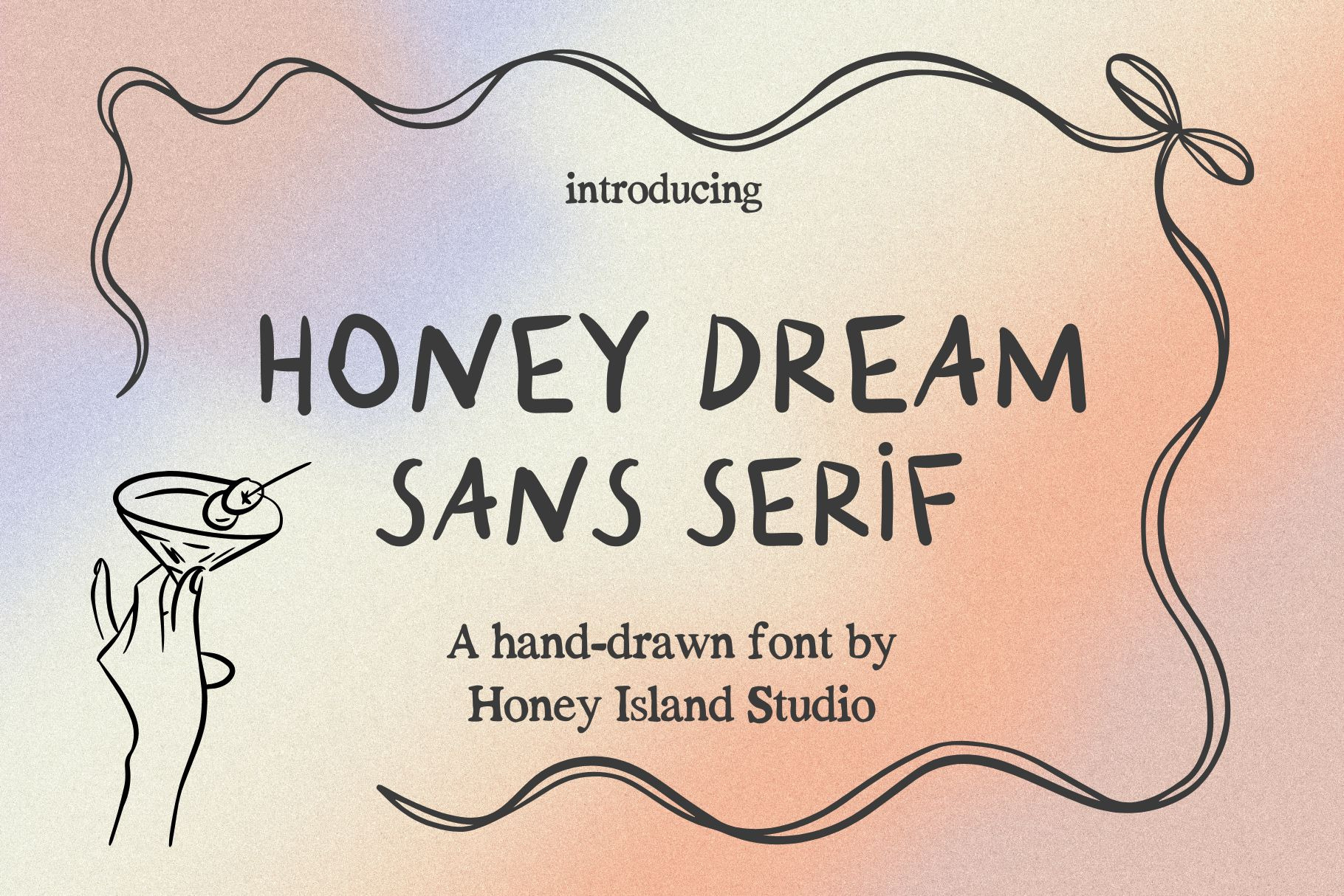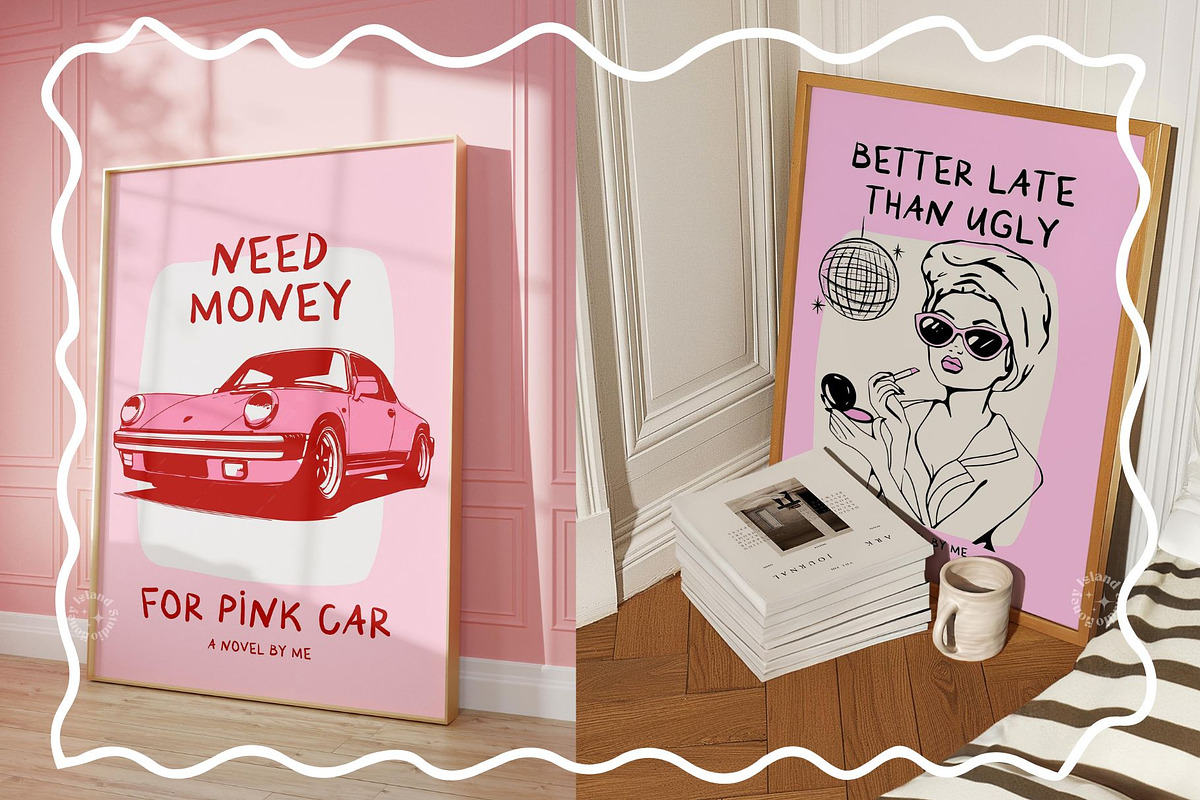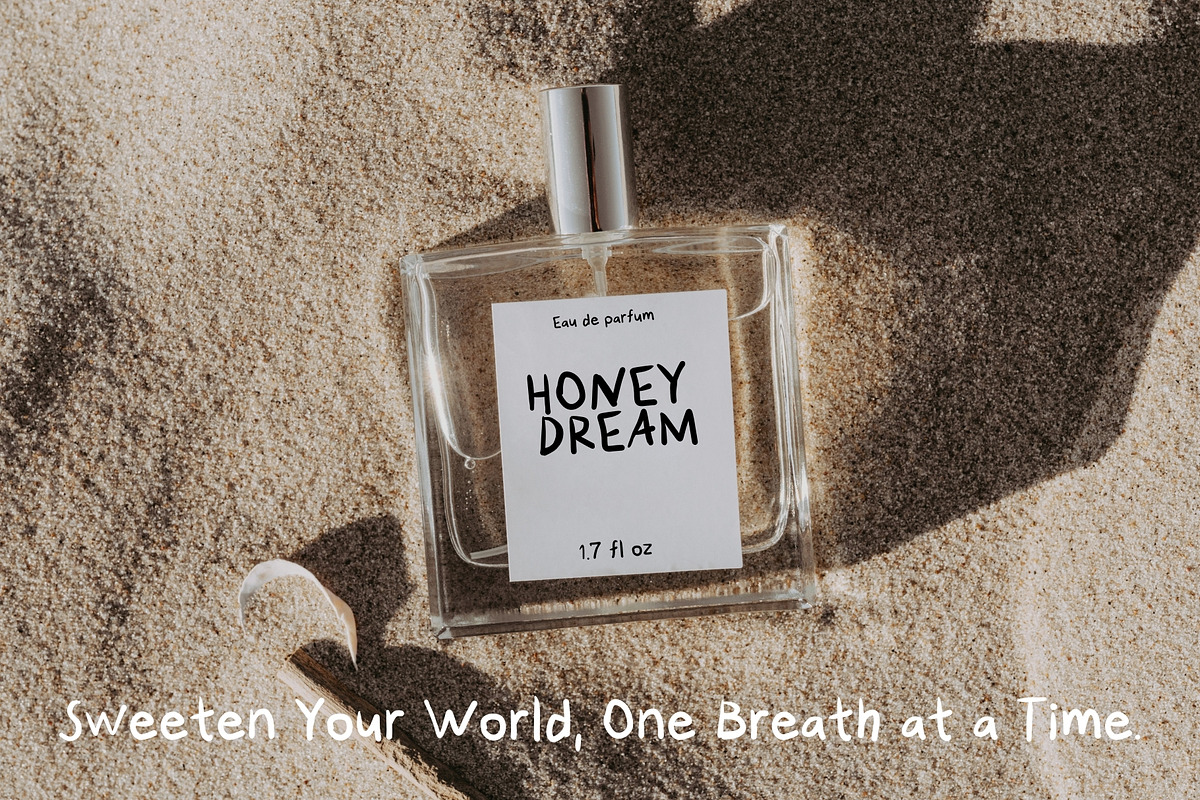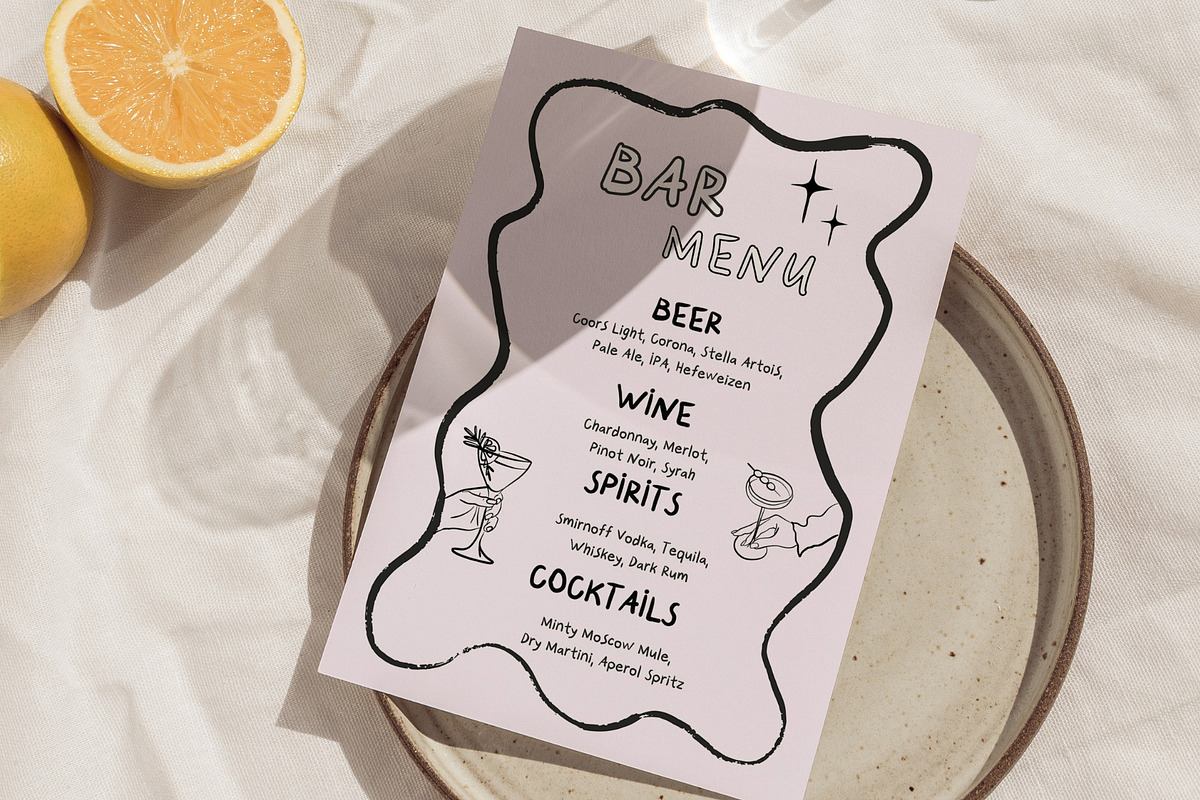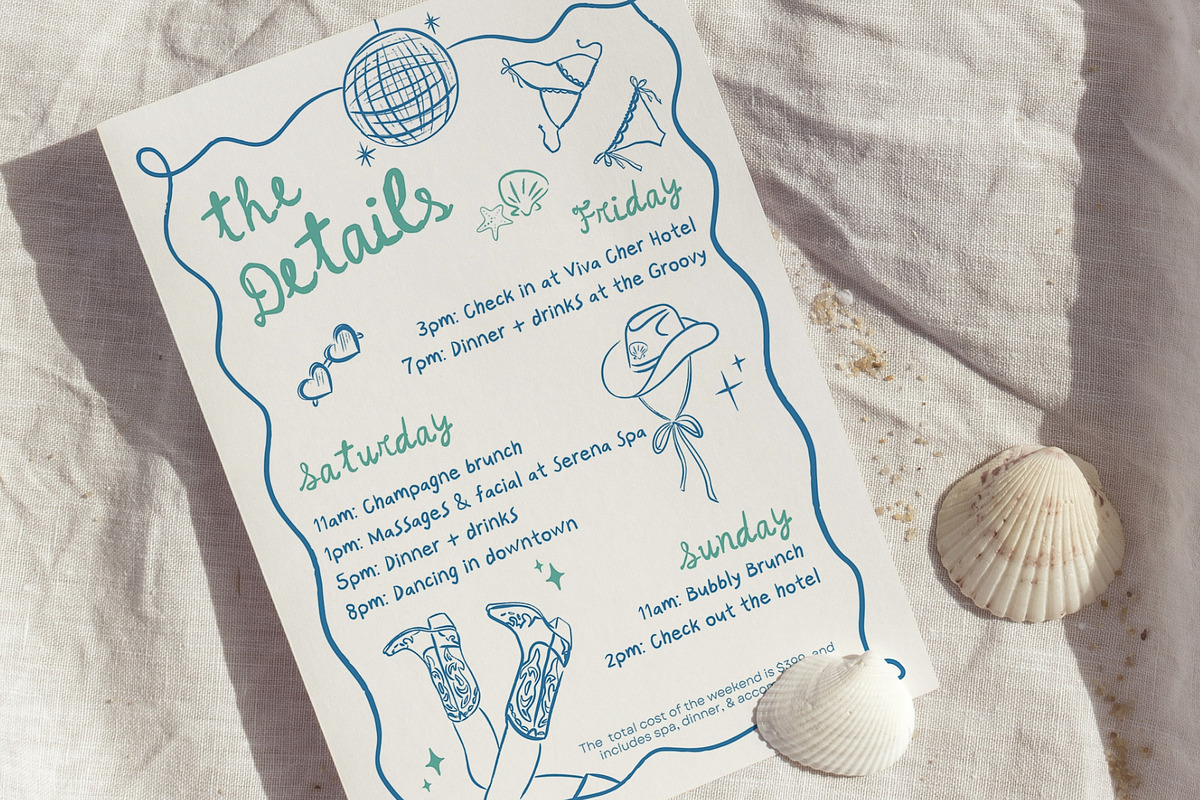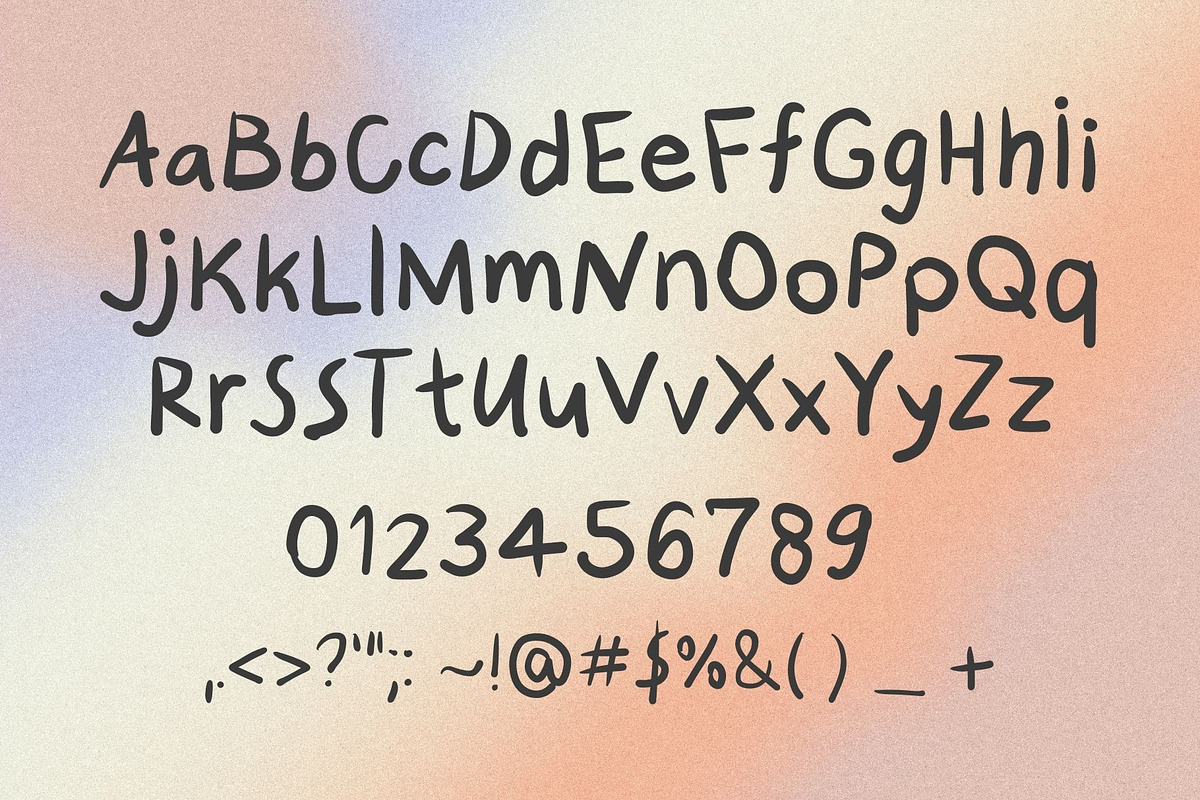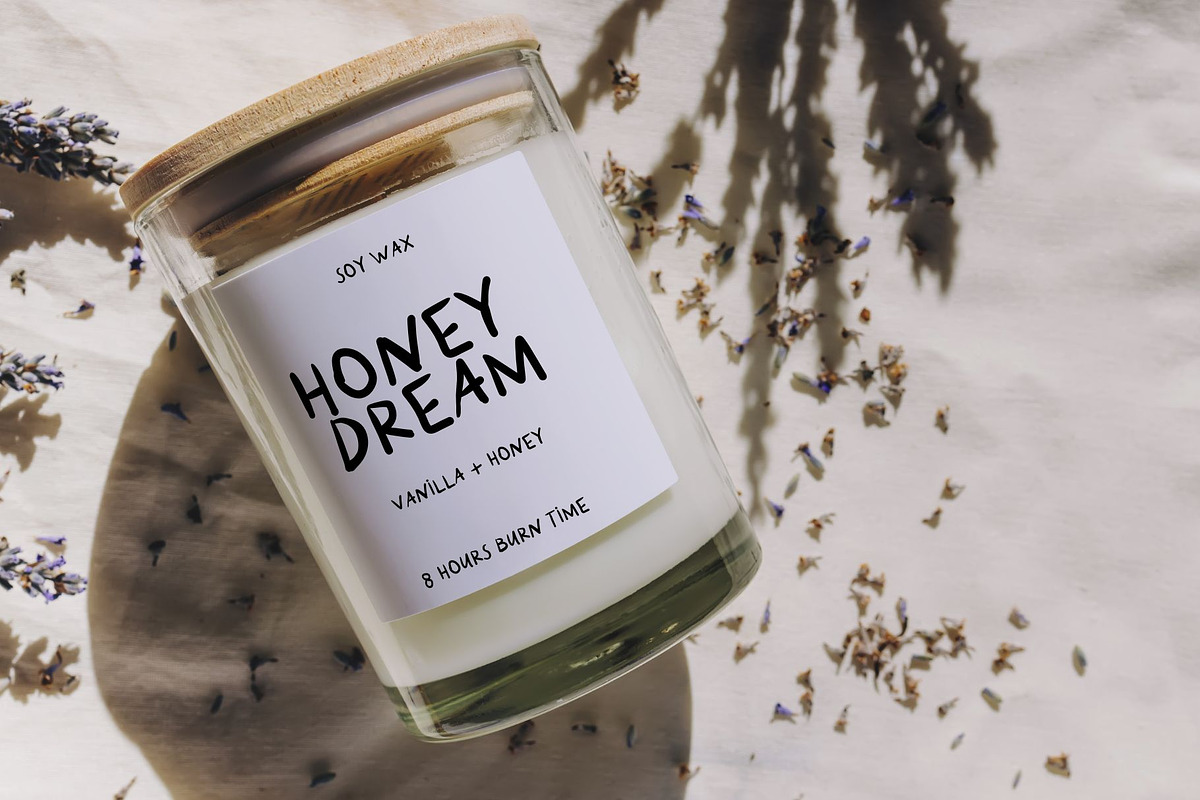
Honey Dream Sans Handwritten Font
Honey Dream Sans Handwritten Font is a fun and lively typeface that brings a burst of personality to any design. With its playful, handwritten style and clean sans-serif structure, it feels fresh, lighthearted, and full of charm. Perfect for casual, modern projects, it adds an easygoing yet stylish touch to everything from branding to social media graphics, ensuring your message stands out with a friendly, inviting vibe.
Honey Dream Sans Handwritten Font is the perfect blend of fun and sophistication, offering a unique, approachable look that’s ideal for modern designs.
Whether you’re working on a personal project, brand identity, or social media content, this font adds personality and warmth while maintaining a clean, minimalist style. Its playful charm ensures that your designs will leave a lasting impression, making it a versatile choice for any creative endeavor.